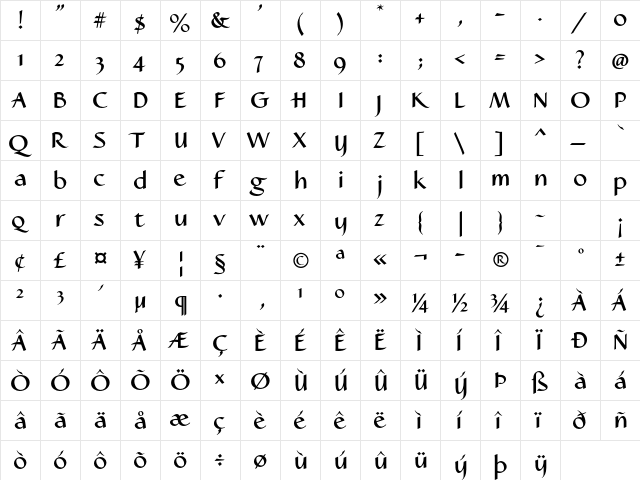
Caterina LT Std Bold Font Preview
Caterina LT Std Bold
Caterina LT Std Bold Font Details
| Foundry | Linotype GmbH |
| Designer | Paul Veres |
Design Context for Caterina LT Std Typeface
Caterina LT Std offers clean, dependable letterforms without strong stylistic allegiance, making it a practical choice for designers who need flexibility. The heavy weight commands attention and anchors typographic hierarchies.
Pro Tip: Use Caterina LT Std in both headline and body roles to test its range before committing to a single application.